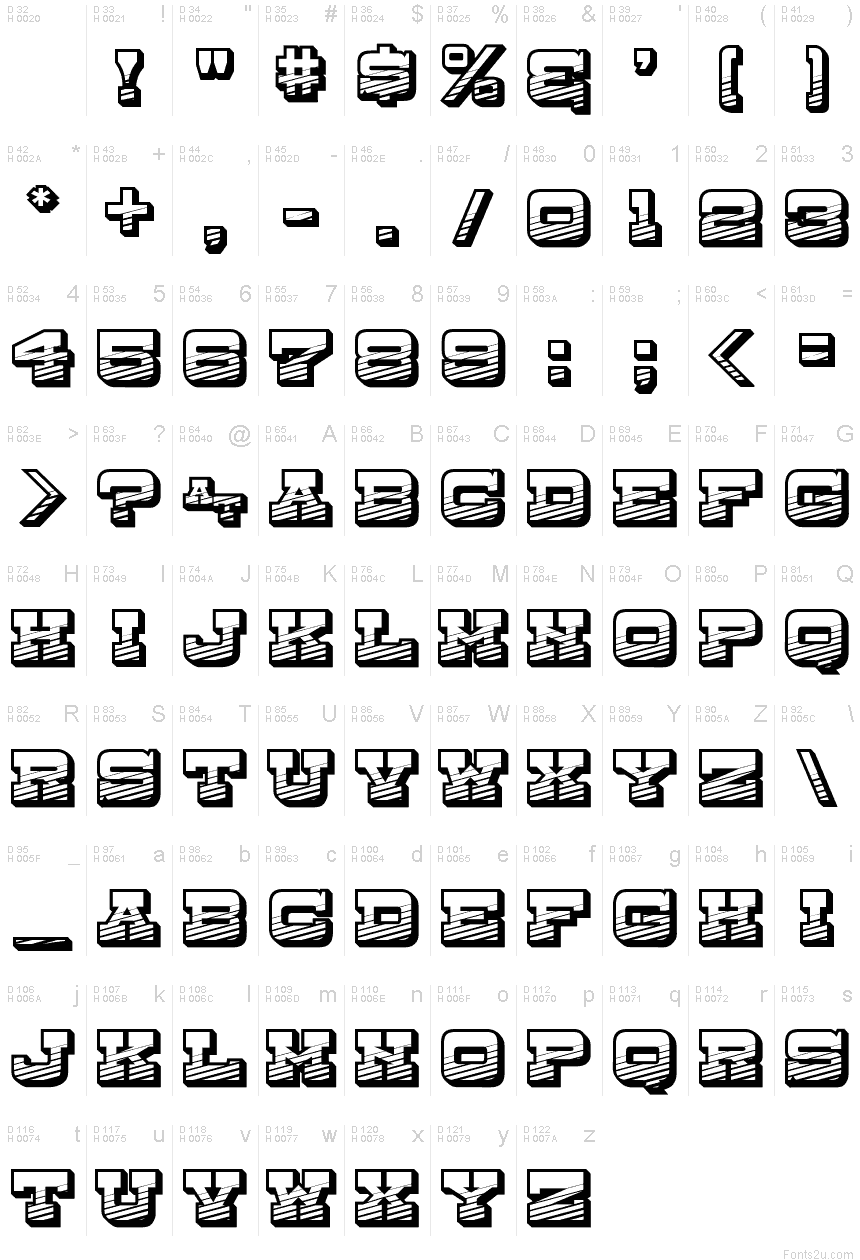
Dry Goods Emporium JL
Dry Goods Emporium JL font by Jeffrey N. Levine is a free Western display typeface that looks like it was pulled straight from a weathered storefront sign. Heavy block letters, rounded corners, and bold black outlines wrap around slanted “woodgrain” stripes, giving each word a chunky, hand-painted feel. It has that dusty, frontier-shop charm while still reading clearly at a glance.
Using Dry Goods Emporium JL, your headlines instantly suit rodeo posters, BBQ or steakhouse branding, themed party invites, escape room graphics, vintage game titles, and festival signage. This free font really sings at large sizes where the striped texture can breathe; pair it with a clean grotesque sans serif for supporting text so the rugged letterforms stay in the spotlight.